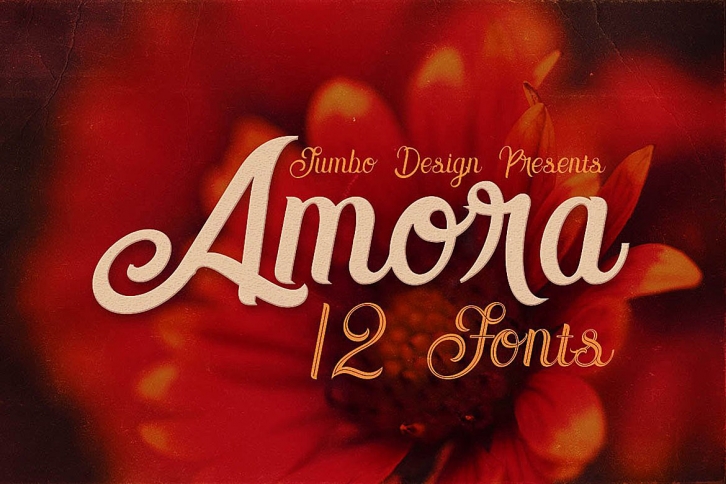
Amora Script is a gorgeous font that was realeased on December 17, 2017. The font can be used in many style contexts and design environments. Perfect for invitations, magazines, websites, logos, and more! It was designed by Cruzine Design and the file size is 4.42 MB. Thanks for checking out this font!